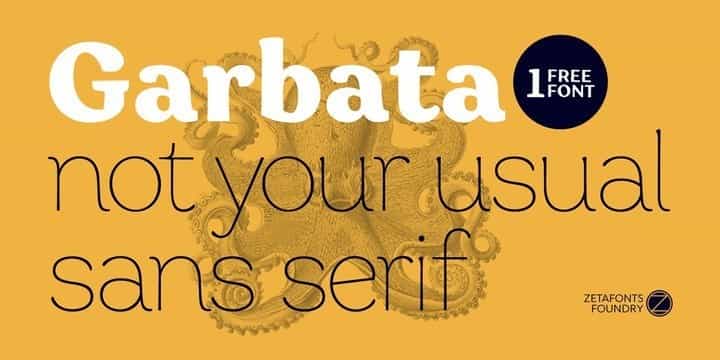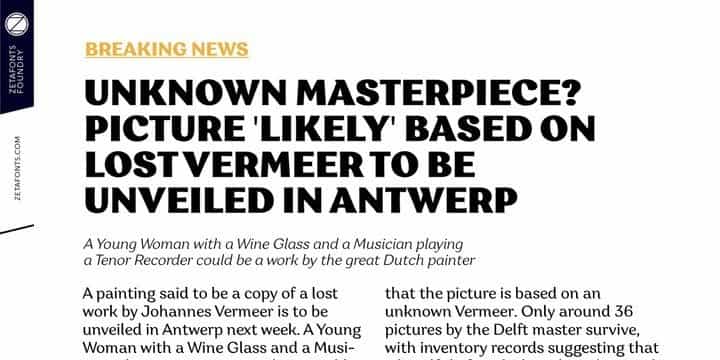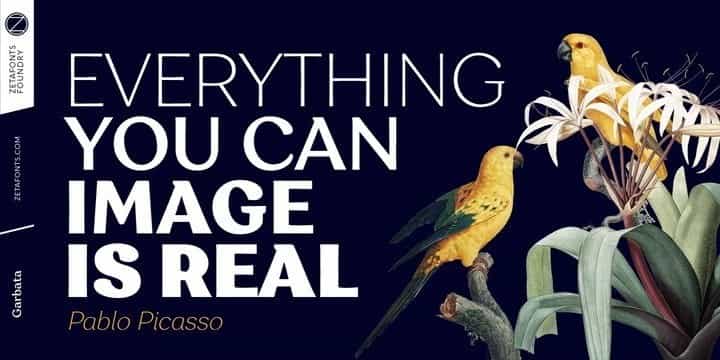
Garbata can be described as playful, yet very fun serif typeface. Its small size and sharp corners make it efficient when used in large sizes for headlines or logotypes.